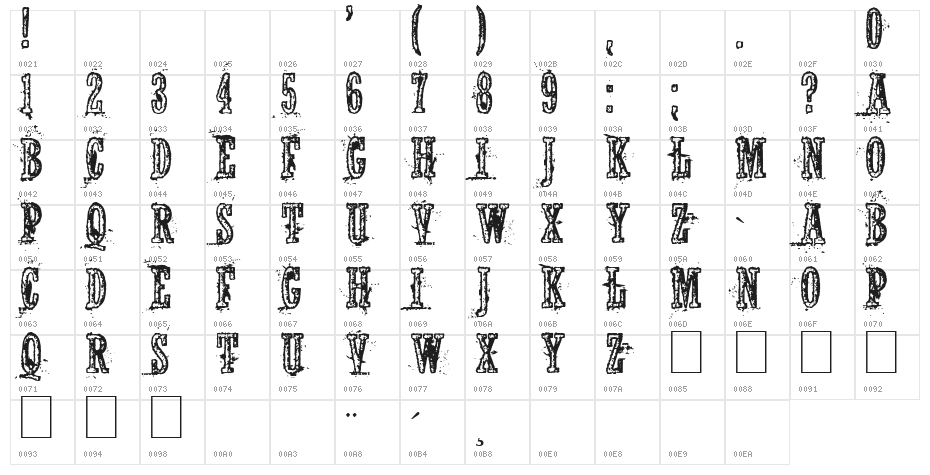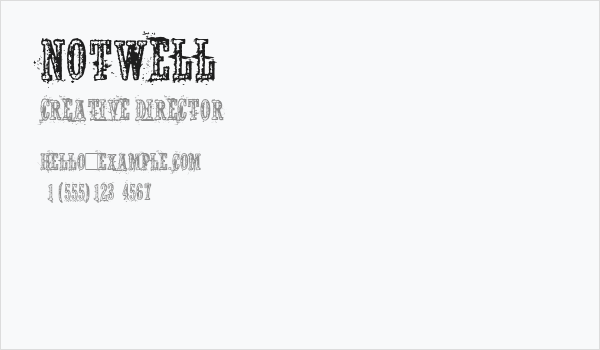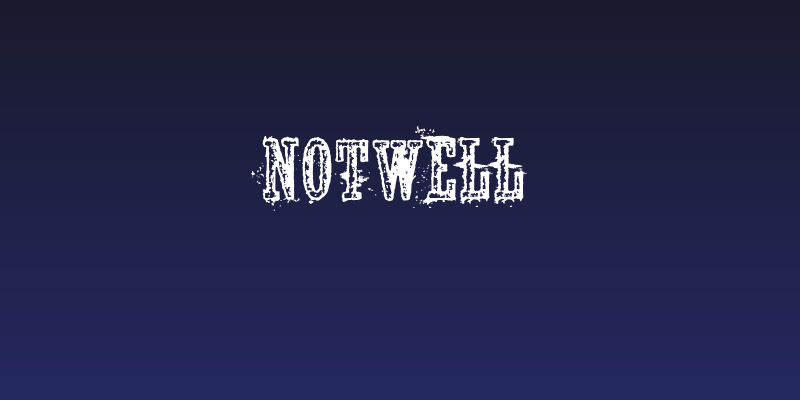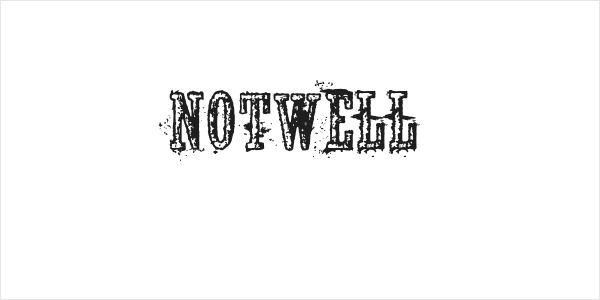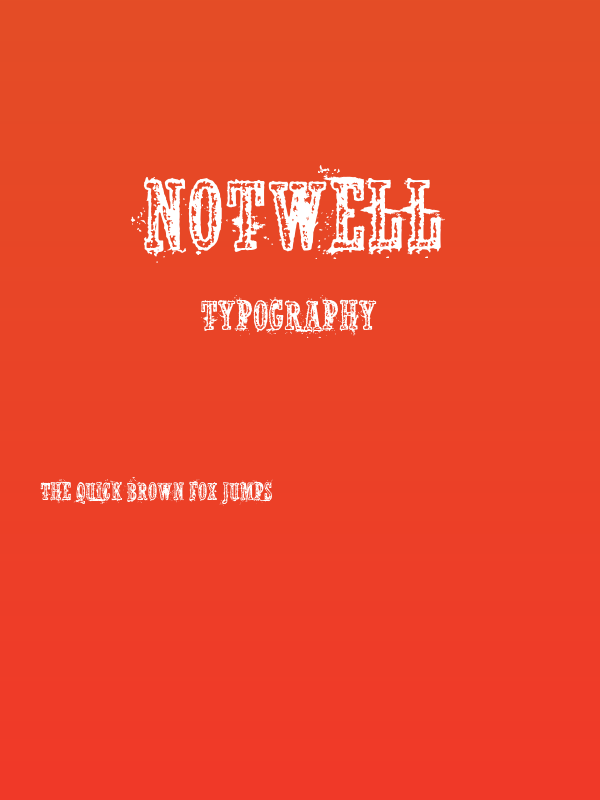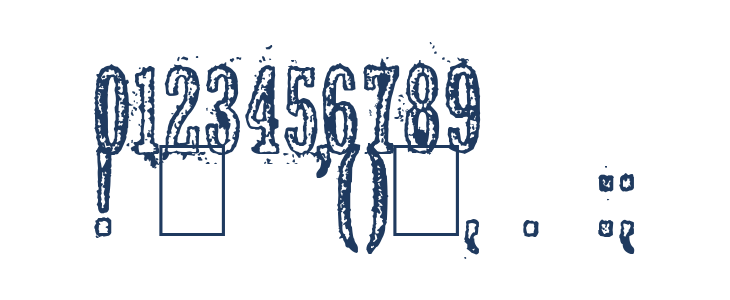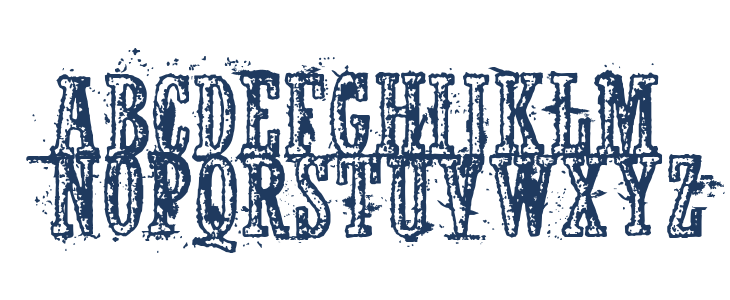
Notwell Font
Notwell Description
This font features a distressed, grunge style with a textured appearance that gives it a worn, vintage feel. The characters are bold and have a serif structure, with irregular edges and a rough, weathered look. This design choice adds a sense of ruggedness and character, making it ideal for projects that require a touch of nostalgia or a gritty aesthetic. The uppercase letters are prominent, and the numbers follow the same distressed pattern, ensuring consistency across all characters. The font's unique style makes it stand out, providing a strong visual impact.
| Proposed Projects | Ideal for vintage posters, album covers, branding for rustic or industrial-themed businesses, and any design needing a gritty, aged look. |